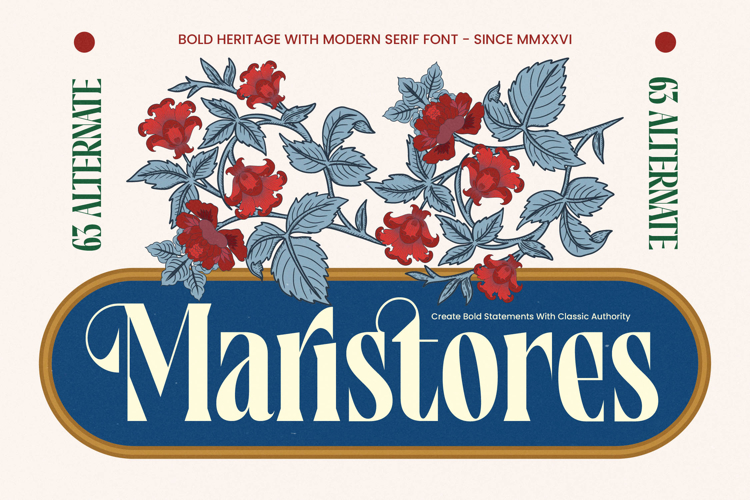
Maristores - Modern Serif Font
Elevate your designs with the timeless elegance and modern flair of Maristores - Modern Serif Font. This sophisticated typeface masterfully blends classic serif tradition with contemporary appeal, delivering an authoritative presence that instantly commands attention. Perfect for projects seeking a touch of refined luxury, Maristores - Modern Serif Font offers a distinctive visual voice that resonates with distinction and grace.
Discover unparalleled design flexibility and visual impact with every character. Maristores - Modern Serif Font features meticulously crafted letterforms with striking high-contrast strokes and elegant curves, ensuring exceptional readability and aesthetic beauty. Its rich set of expressive alternates and ligatures empowers designers to create truly unique and memorable typographic compositions, transforming ordinary text into captivating visual art.
Unlock global design potential with impeccable readability and adaptable functionality. Maristores - Modern Serif Font is ideally suited for luxury branding, high-end packaging, sophisticated editorial design, elegant invitations, and exclusive fashion labels—anywhere a premium feel is essential. With its extensive multilingual support, Maristores - Modern Serif Font adapts seamlessly across global markets, making it incredibly versatile for international projects.
Invest in a typeface that truly distinguishes your creative work and leaves a lasting impression. Choosing Maristores - Modern Serif Font means opting for a design asset that consistently delivers impactful, memorable, and prestigious visual narratives. Let Maristores - Modern Serif Font be the foundation for your next project, enabling you to create bold statements with classic authority.